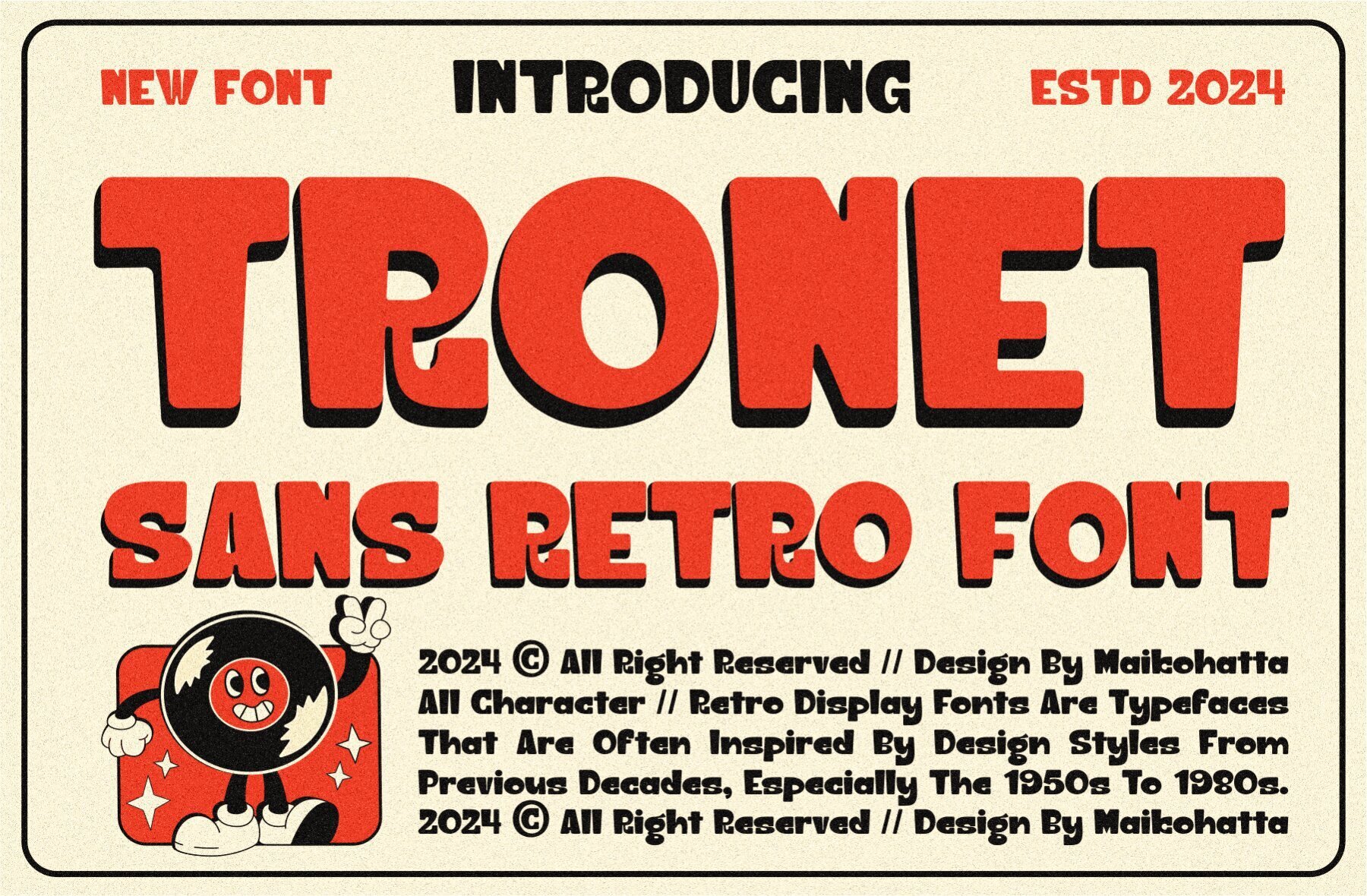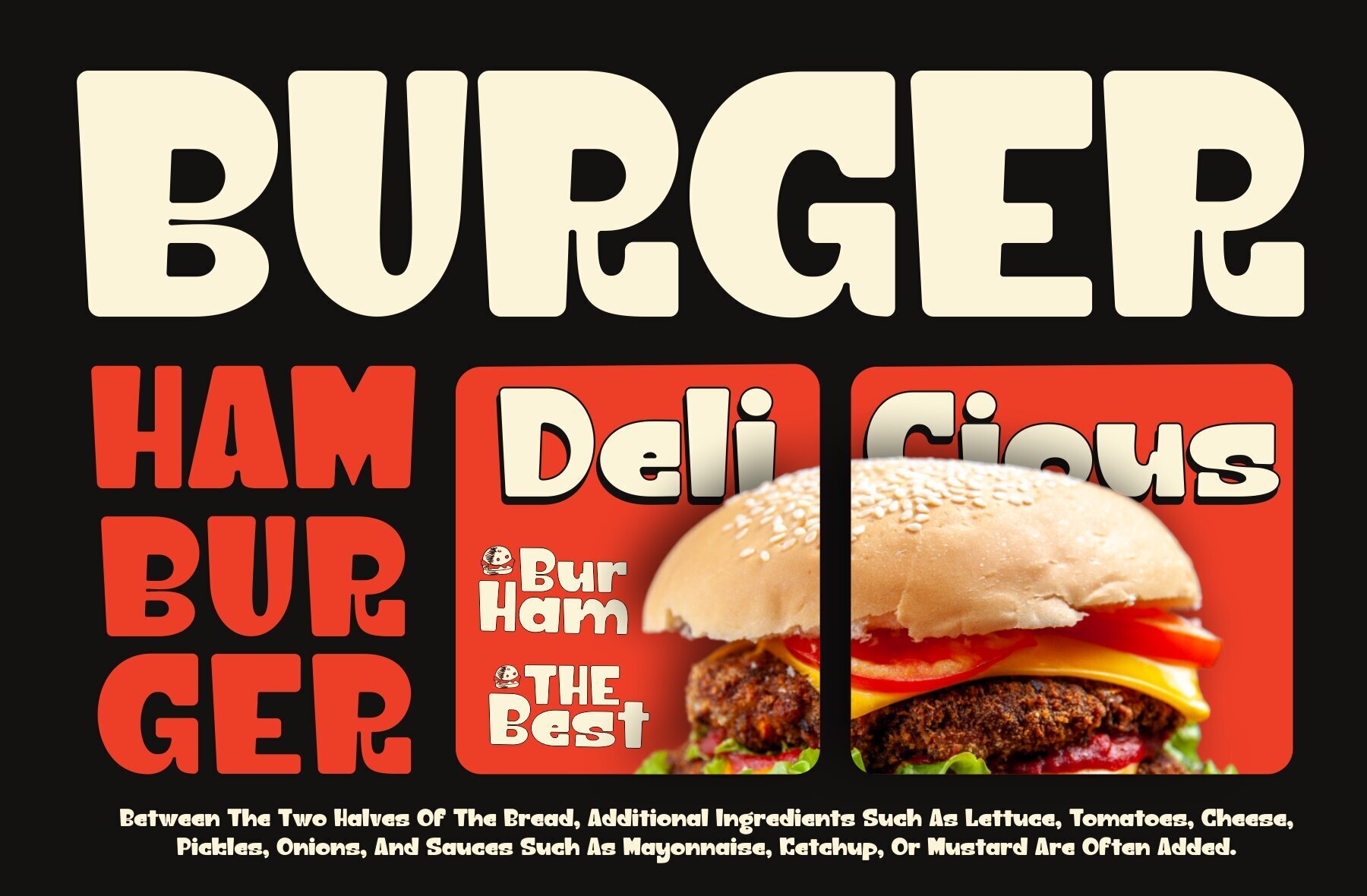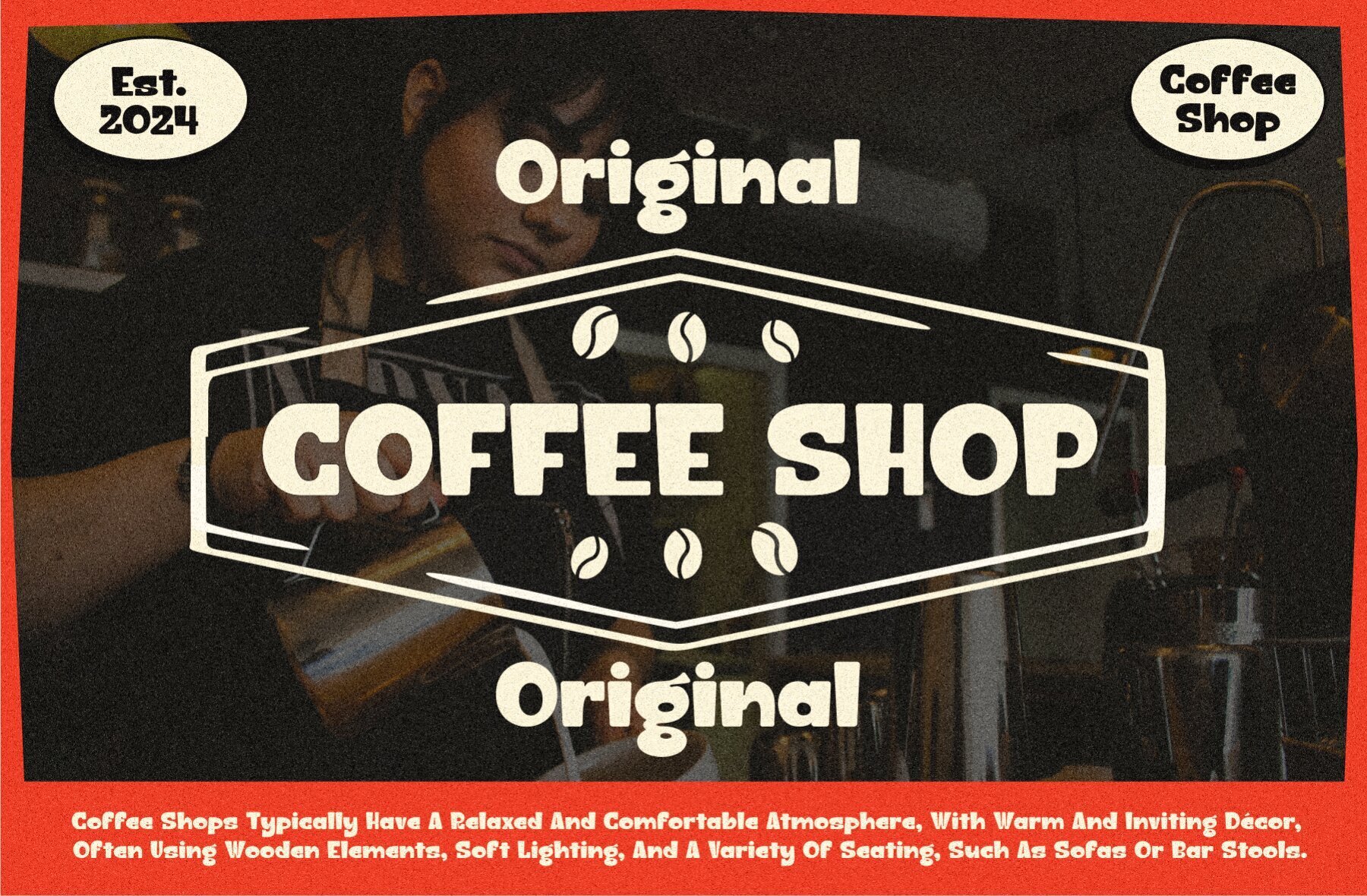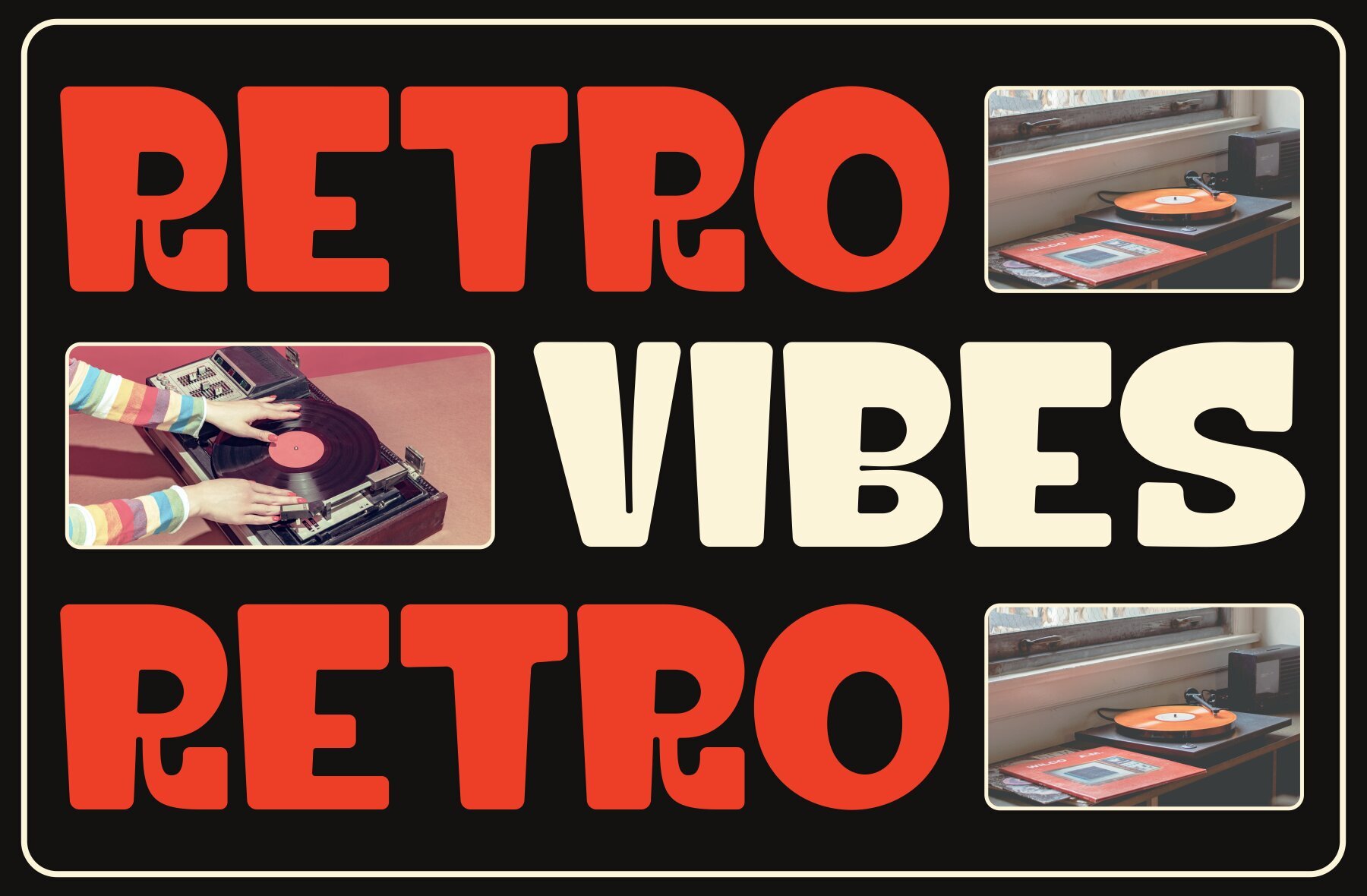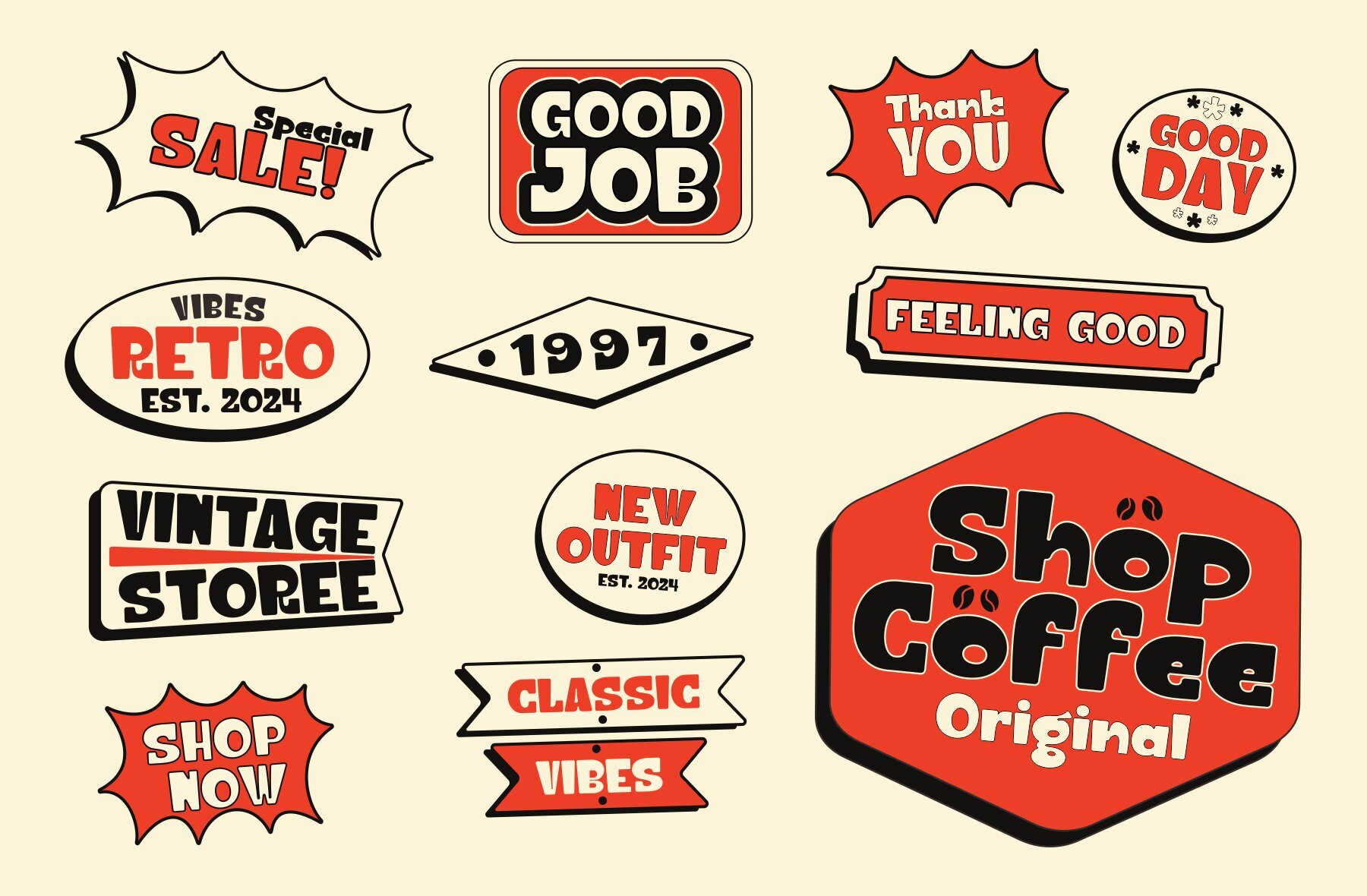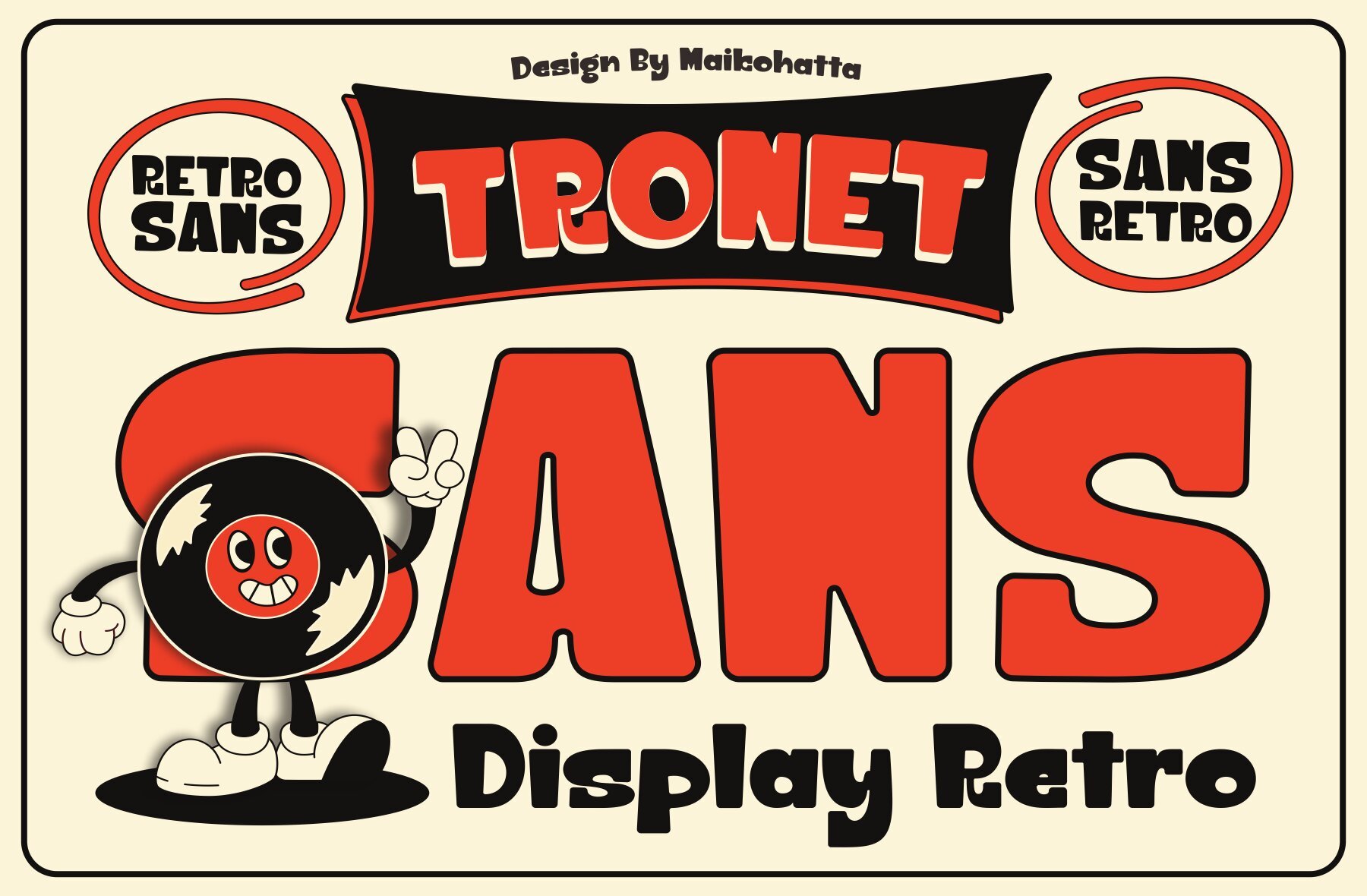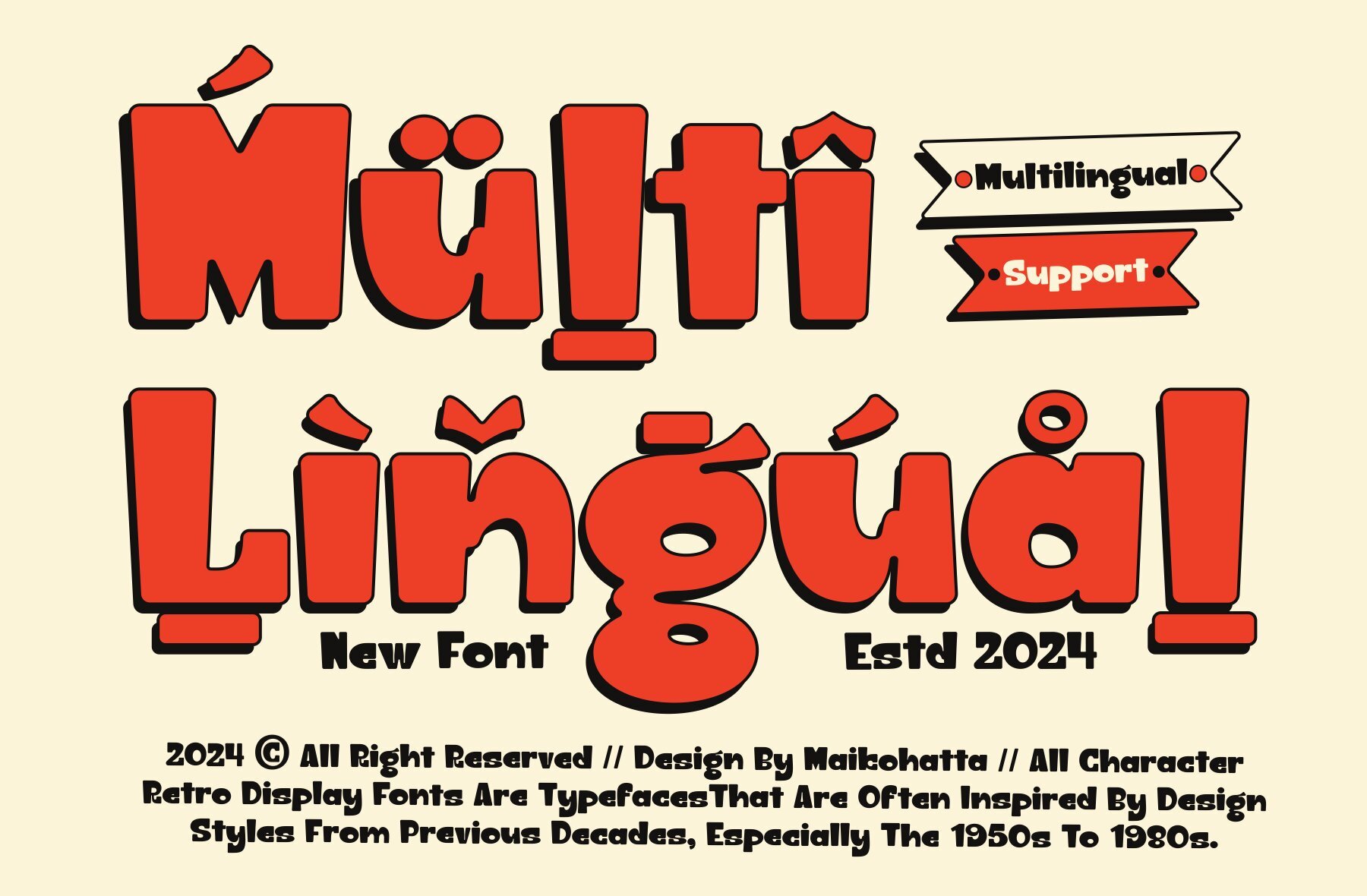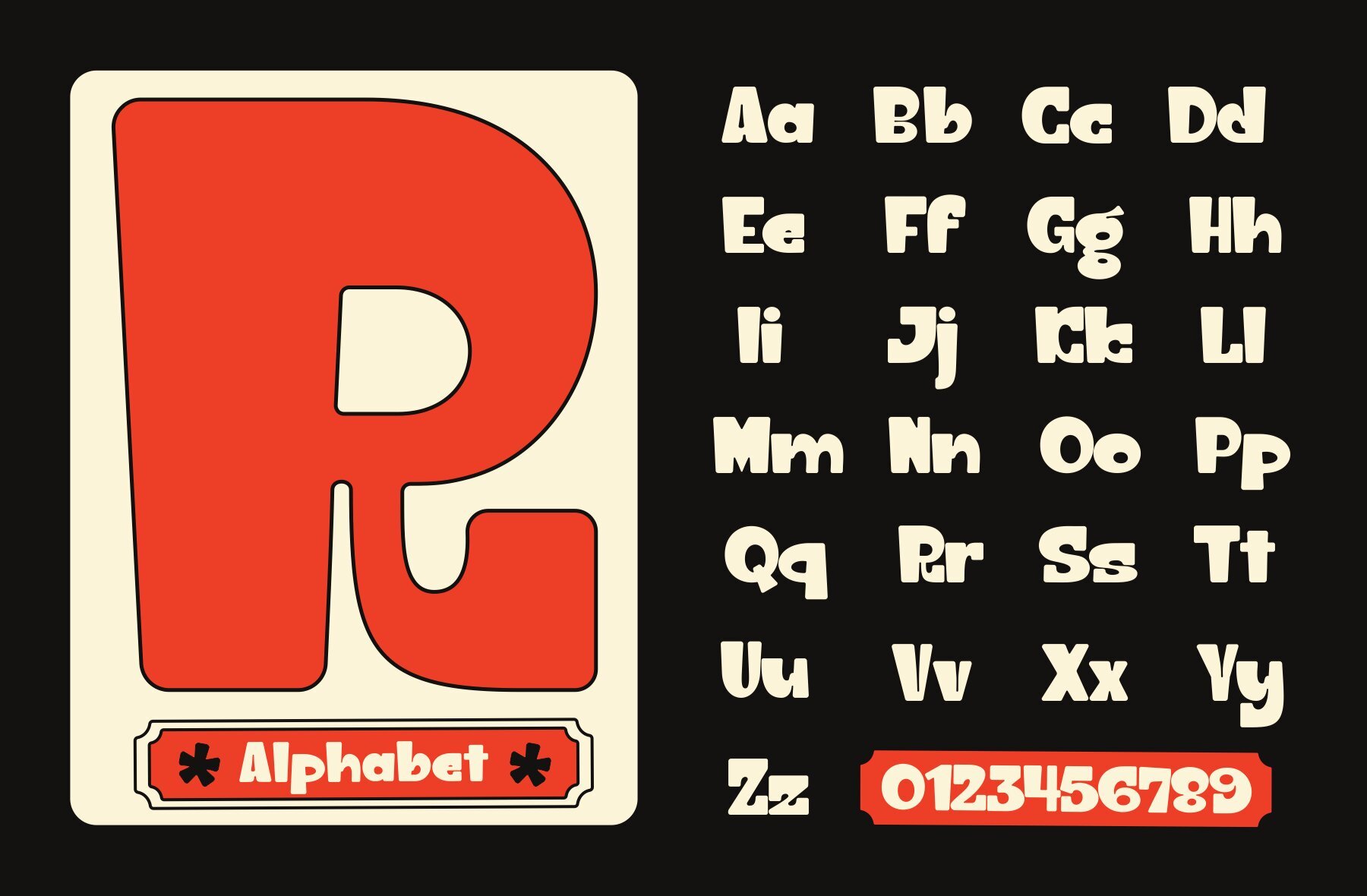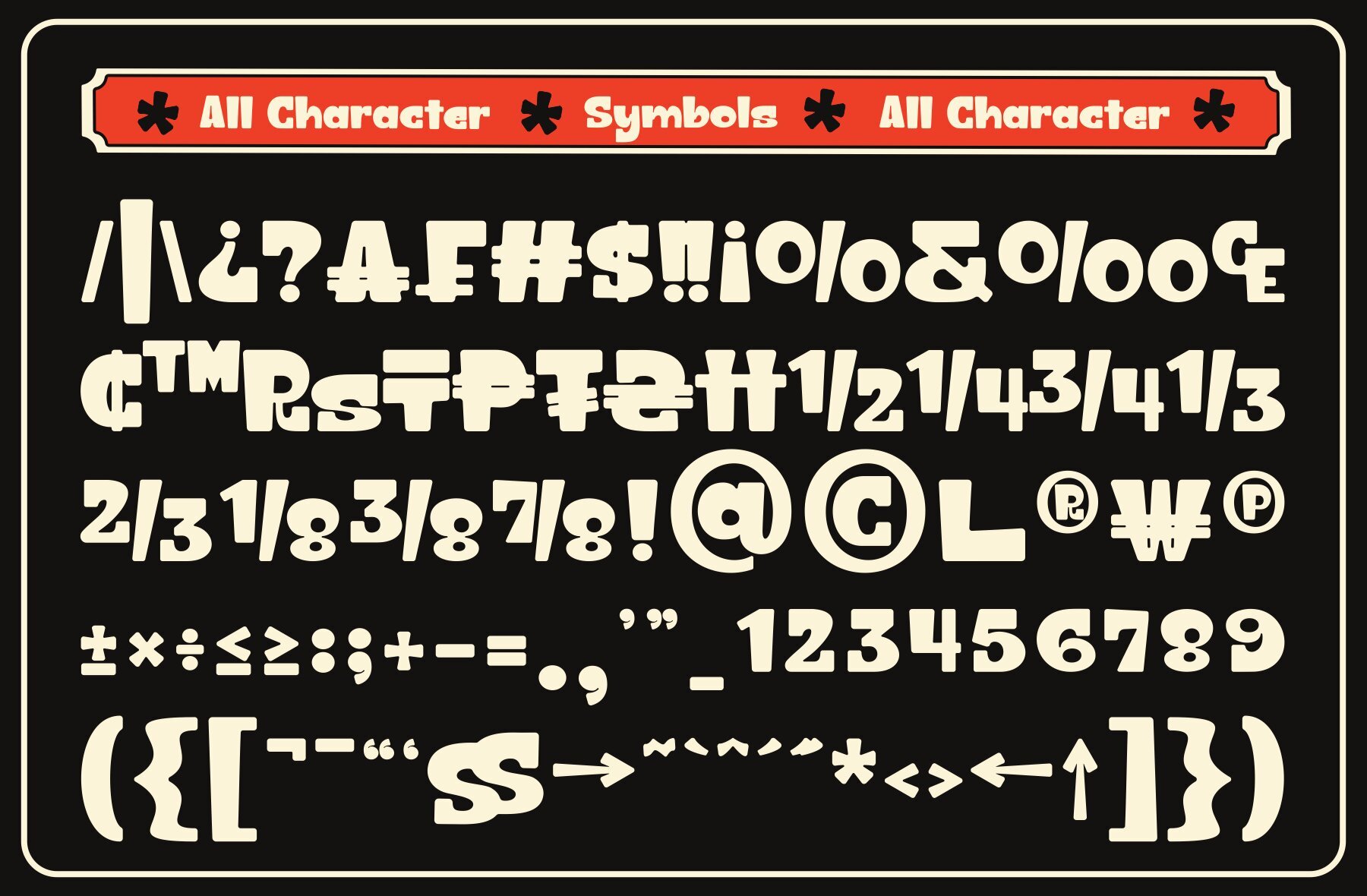
Tronet Font
TRONET
Introducing a font that embodies joy and lightheartedness with its playful, handwritten style reminiscent of comics or cartoons. This sans retro font is ideal for projects seeking a fun and vibrant aesthetic. Whether designing posters, invitation cards, comics, or promotional materials, this font adds a touch of playfulness, making it perfect for younger audiences or those favoring a spirited vibe.
The font offers a comprehensive character set including uppercase, lowercase, multilingual support, and ligatures, providing versatility for various designs. With its engaging and cheerful appeal, it is sure to enhance any creative project with its distinct retro charm.